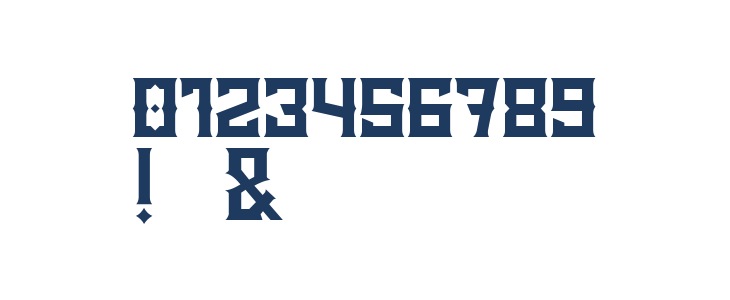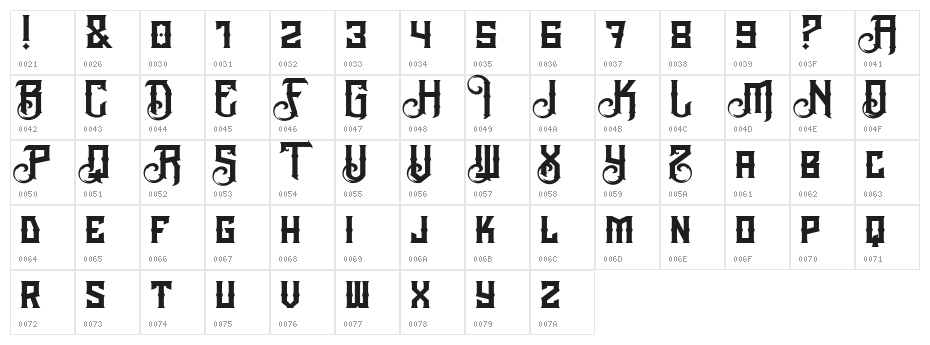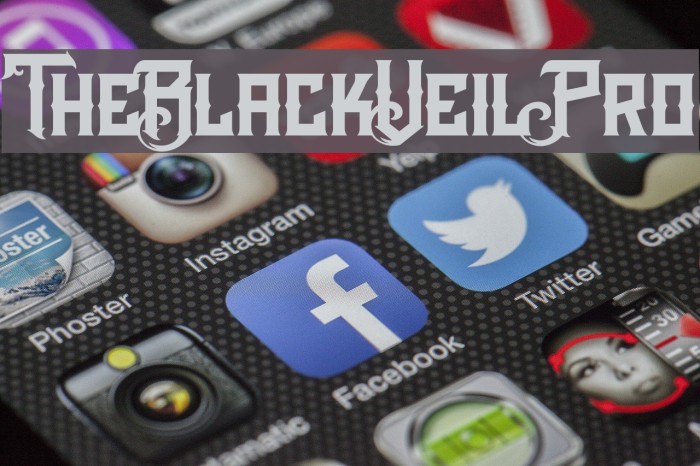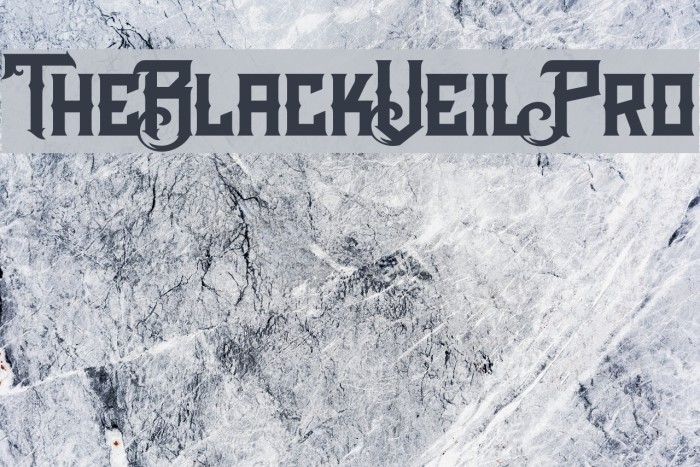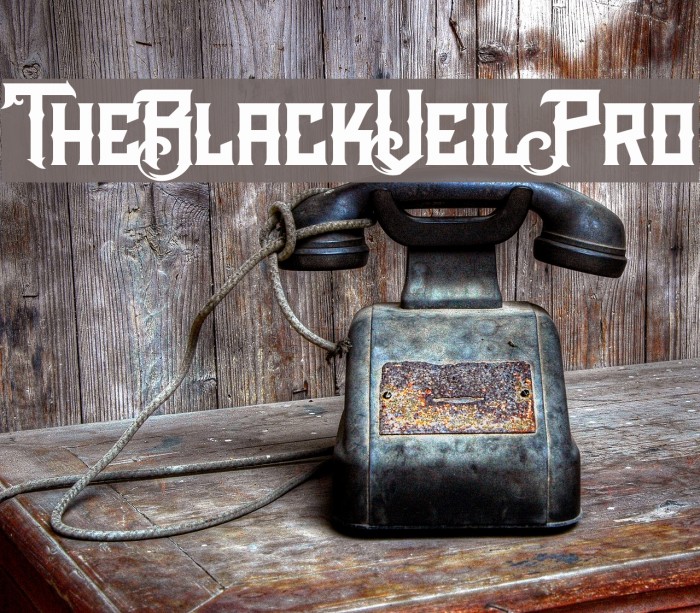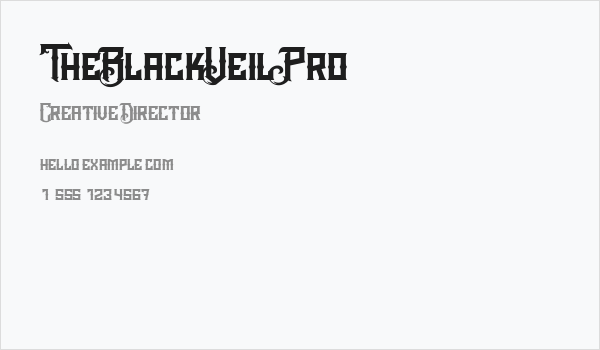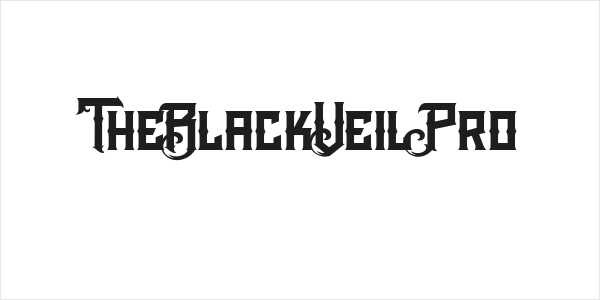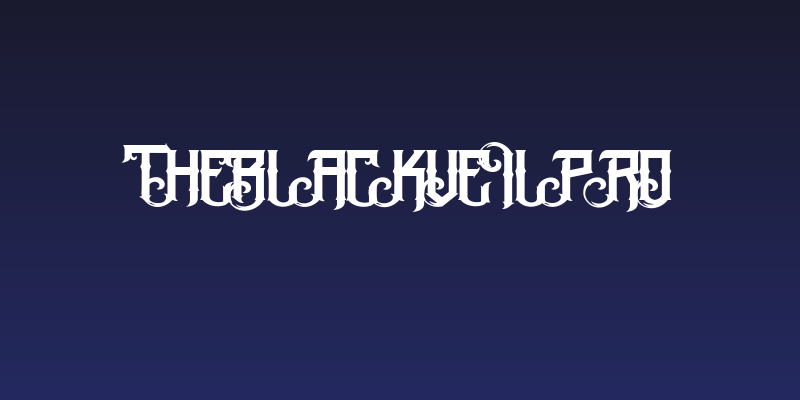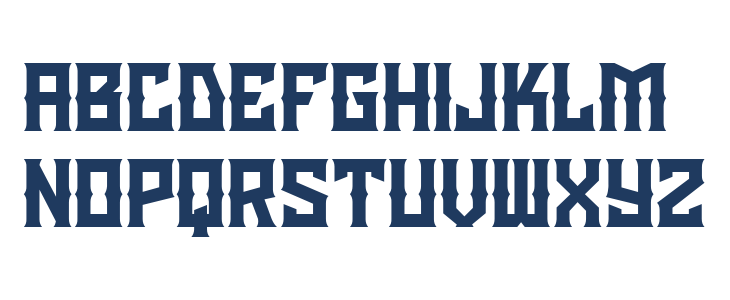
TheBlackVeilPro Font
TheBlackVeilPro Description
This font features a bold and dramatic style with intricate details and sharp edges, reminiscent of Gothic and medieval influences. The uppercase letters are ornate, with elaborate flourishes and angular forms that create a sense of grandeur and mystery. The lowercase letters maintain a consistent weight and style, complementing the uppercase with a slightly more restrained design. The numbers and special characters follow the same aesthetic, ensuring a cohesive look across all elements. This font is ideal for projects that require a strong visual impact and a touch of historical elegance.
| Overall Style | Gothic, Decorative |
| Proposed Projects | Perfect for album covers, movie posters, book titles, and branding that requires a dramatic and historical touch. |